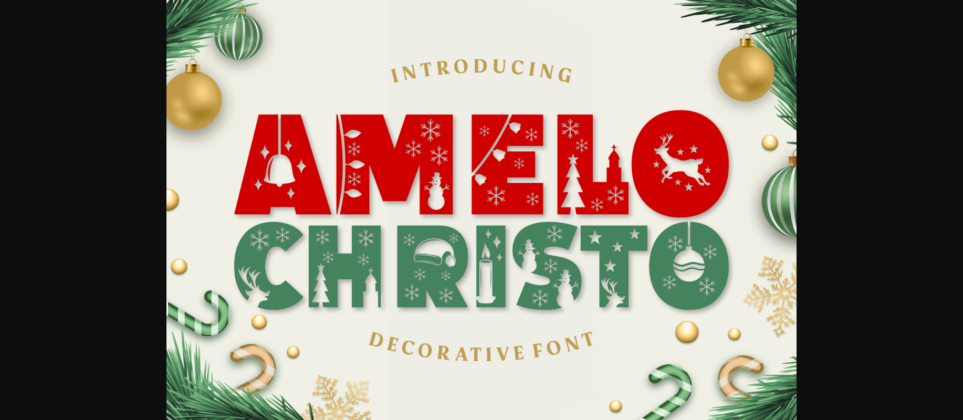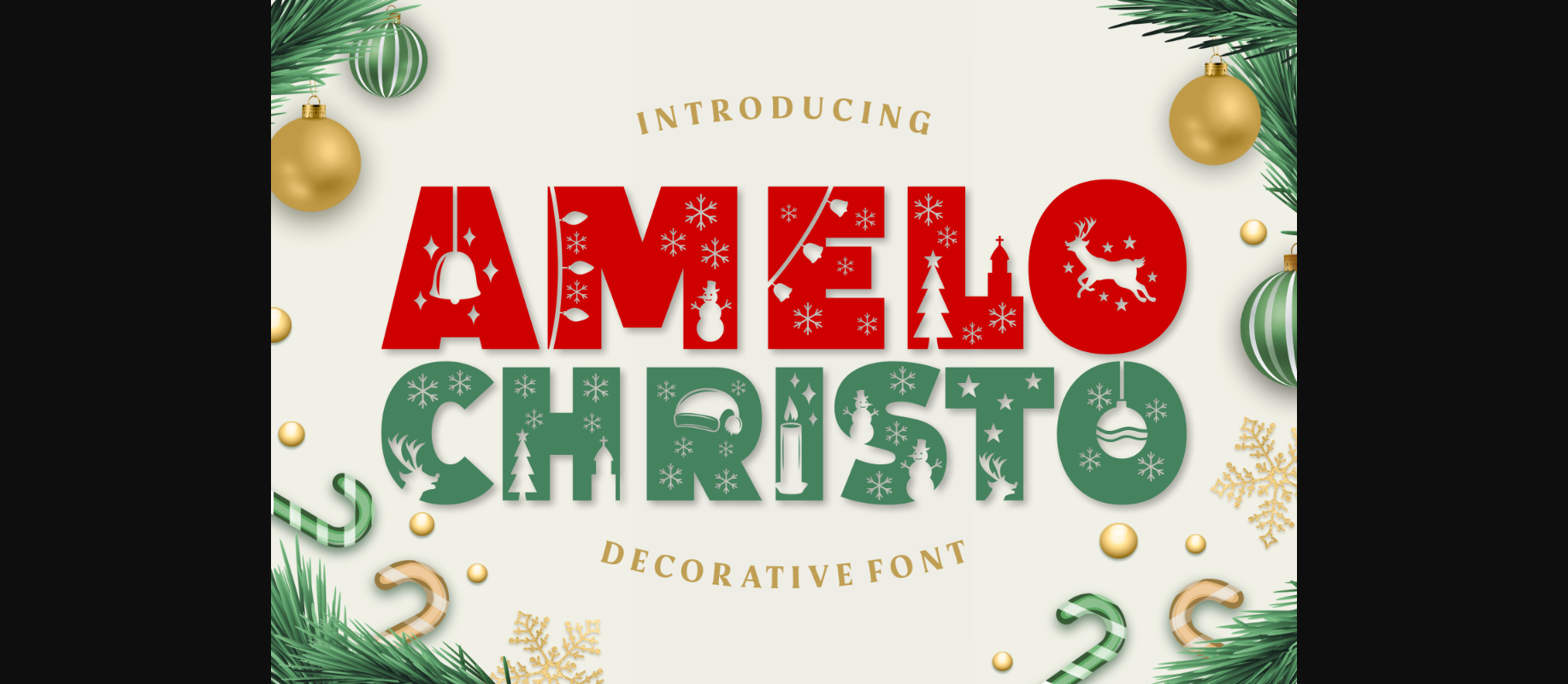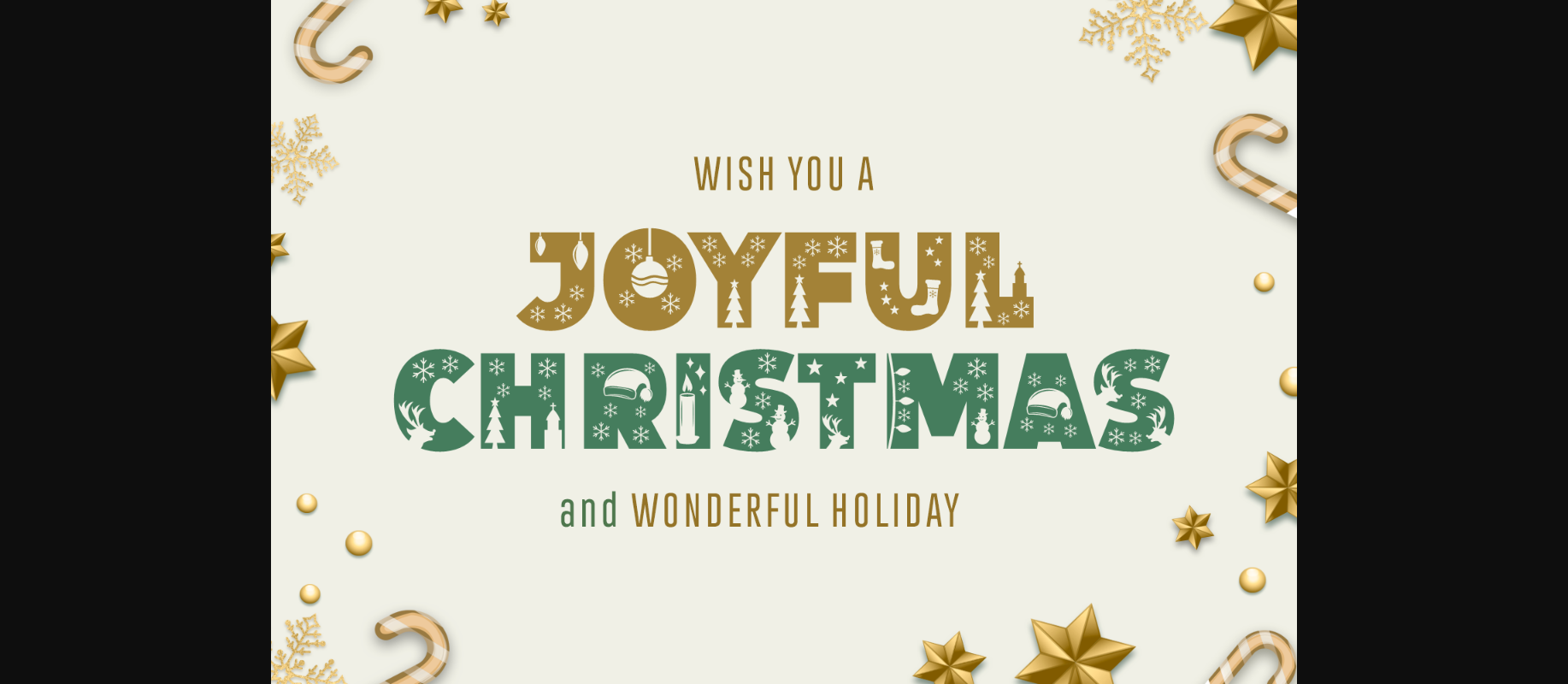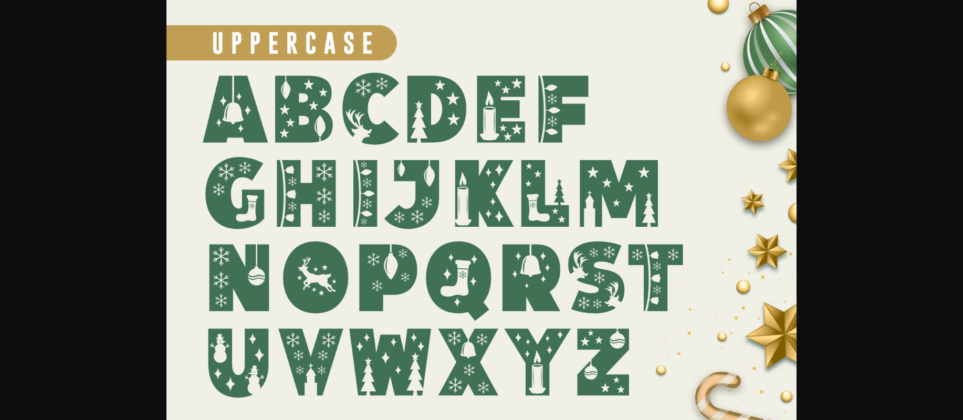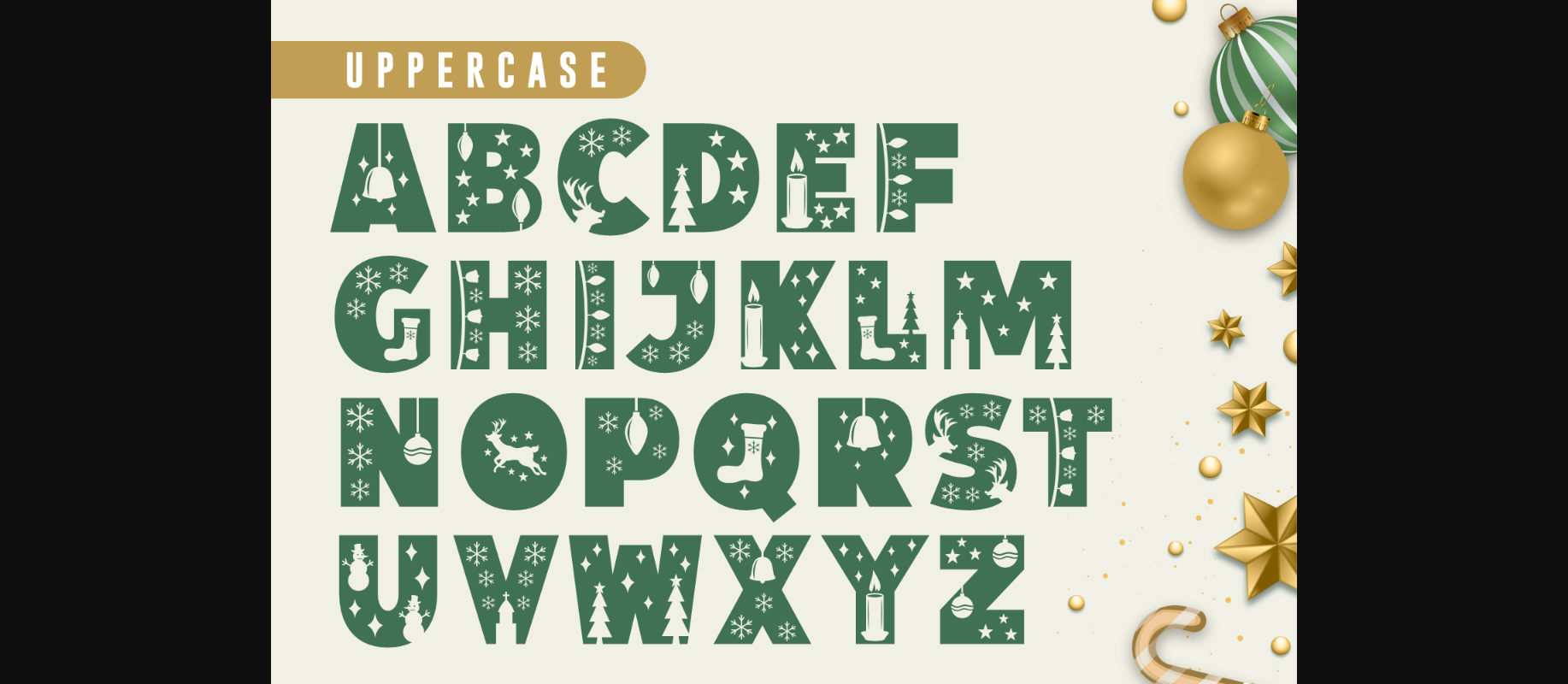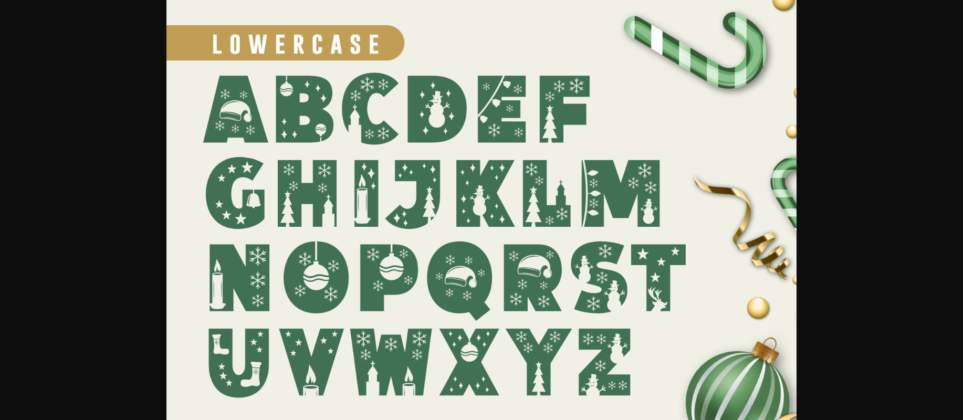
Amelo Christo Font
About Amelo Christo Font
Amelo Christo is a festive, thick lettered and warm decorative font. Fall for its ravishing style and use it to create gorgeous wedding invitations, beautiful stationary art, eye-catching social media posts, and much more!